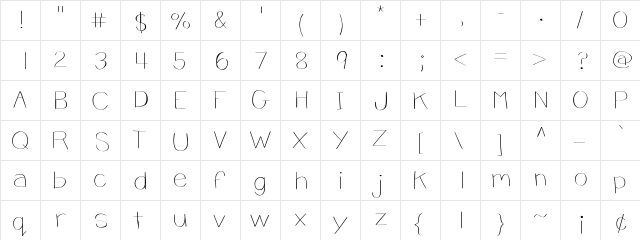
jsbthinandchunky Medium
jsbthinandchunky takes a measured approach to typography — its balanced proportions and neutral character make it a reliable workhorse for both digital and print work. The delicate stroke weight brings airiness and refinement to layouts.